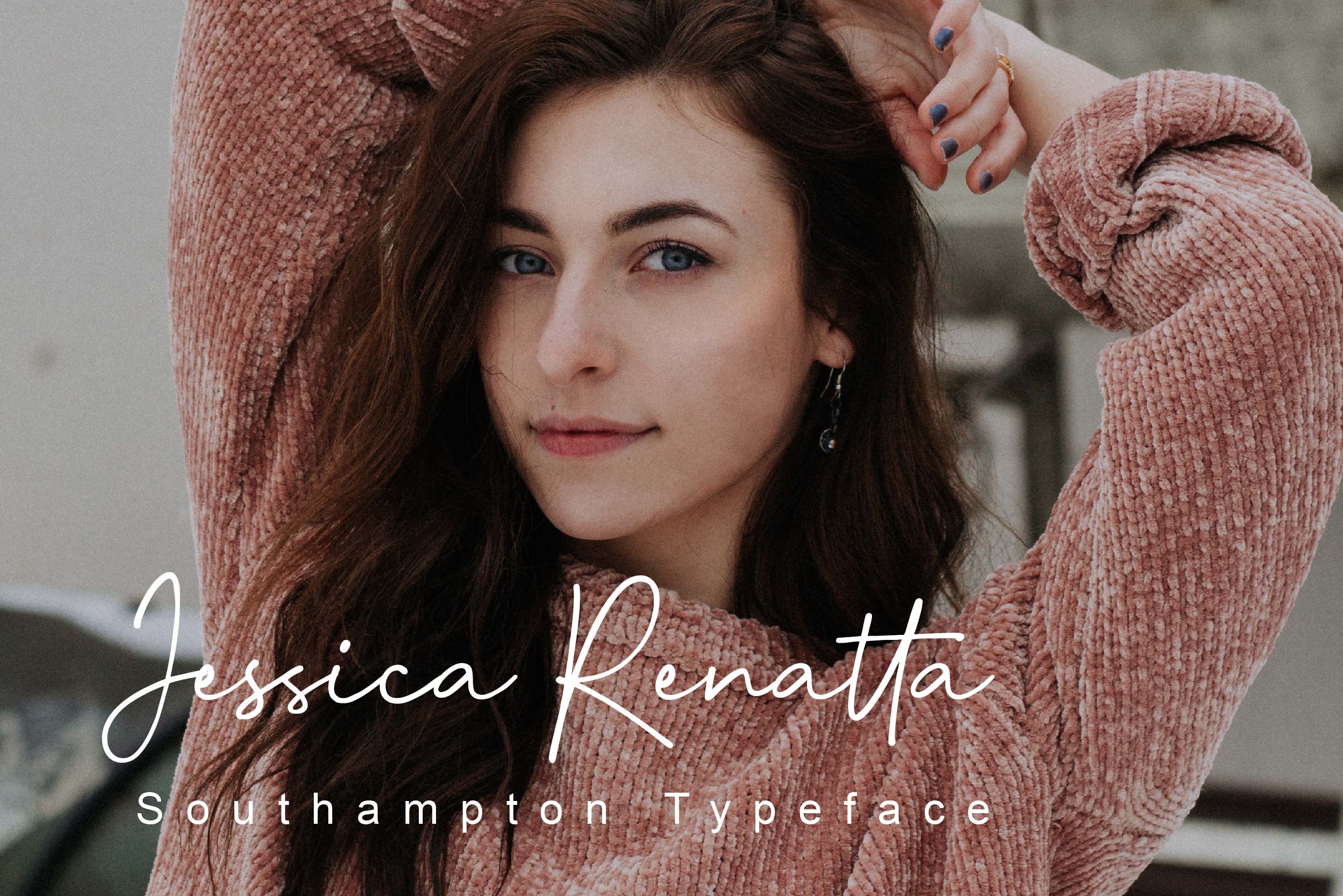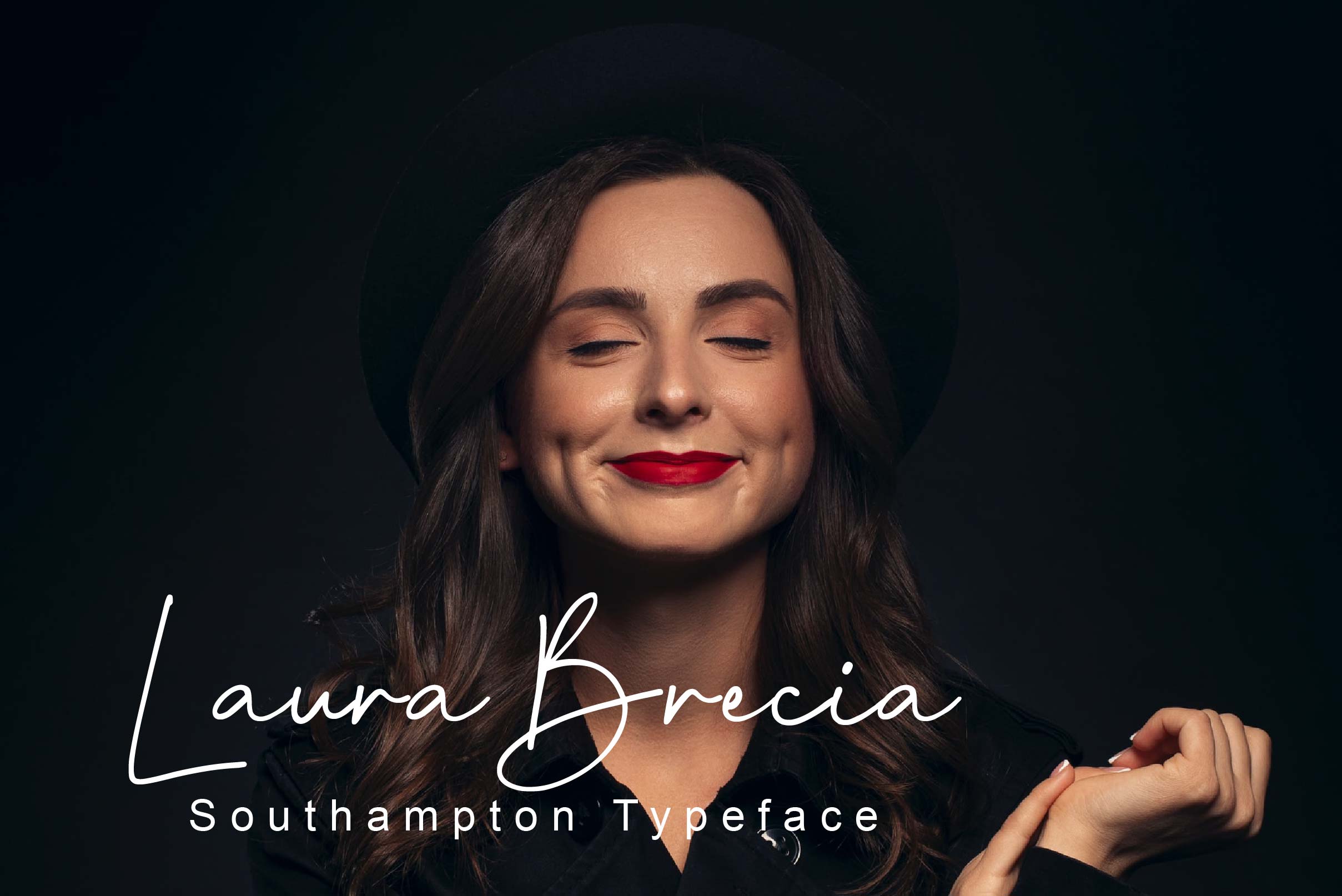
Southamtpton Font
Southamtpton Script Font is a beautiful monoline handwritten font perfect for product packaging, branding projects, magazines, social media posts, weddings, or just used to express words above the background.
– Uppercase, Lowercase, Numeral & Punctuation
– Alternate Letters, Ligature & Swash/Tail